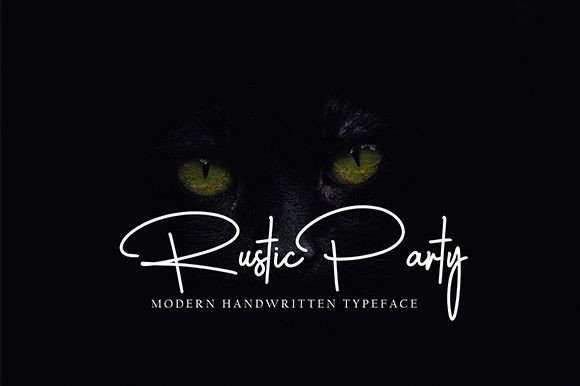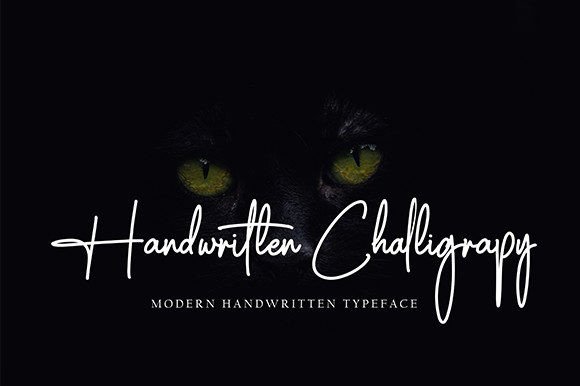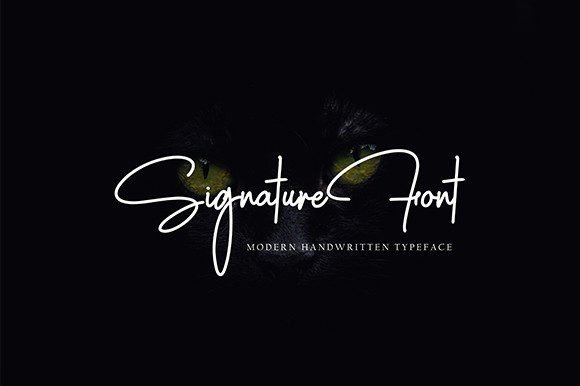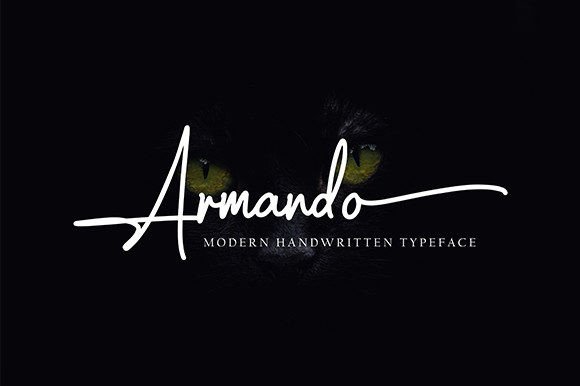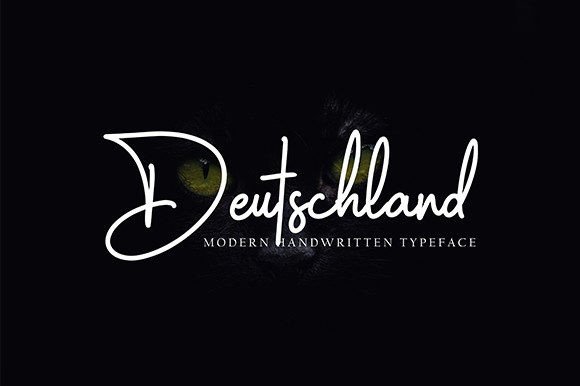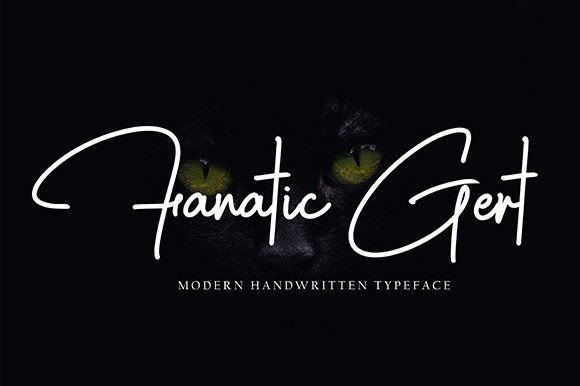
The Ultimate Guide to Bailenda Font: Elevate Your Designs with Style
Ah, the quest for the perfect font! I still remember the time I was working on a project for a client who wanted a bold, yet elegant look. I scoured the internet, tried countless fonts, but nothing seemed quite right. That was until I stumbled upon the Bailenda font. With its unique style and versatility, it’s been a game-changer for many designers, including myself. In this article, we’ll dive into the world of Bailenda font, exploring its features, how to use it, and what makes it so special.
A Personal Review: What I Love About Bailenda Font
So, what makes Bailenda font so amazing? Here are a few things that I absolutely love:
- ✨ Unique Style: Bailenda font boasts a fresh and modern design that’s perfect for making a statement.
- ✅ Versatility: Whether you’re working on a quote, logo, blog header, poster, or branding project, Bailenda font adapts seamlessly.
- 💡 Easy to Read: Despite its stylized look, Bailenda font remains highly legible, even at smaller sizes.
While Bailenda font is incredibly useful, there are a few minor quirks to be aware of:
- 🤔 Limited Cyrillic Support: If you’re working with Cyrillic text, you might find the support a bit limited.
- ⚠️ Glyph Overload: With so many glyphs and stylistic alternates, it can be overwhelming to navigate if you’re new to OpenType features.
Exploring OpenType Features, Glyphs, and Stylistic Alternates
One of the standout features of Bailenda font is its support for OpenType features, glyphs, and stylistic alternates. These features allow you to customize your text, adding an extra layer of creativity to your designs.
- Stylistic Alternates: Switch between different versions of letters or numbers to create a unique look.
- Glyphs: Access additional characters, such as ligatures or ornaments, to enhance your text.
The Bailenda font was created with the goal of providing a fresh, modern look for designers. Inspired by contemporary typography trends, the designer aimed to craft a font that was both stylish and functional.
| Author | Pineungtype & Missinklab |
| Q: What type of projects is Bailenda font best suited for? | A: Bailenda font is versatile and can be used for quotes, logos, blog headers, posters, branding, letters, invitations, stationery, and more. |
| Q: Does Bailenda font support OpenType features? | A: Yes, Bailenda font supports OpenType features, including glyphs and stylistic alternates. |
| Q: Is Bailenda font easy to read? | A: Despite its stylized look, Bailenda font remains highly legible, even at smaller sizes. |